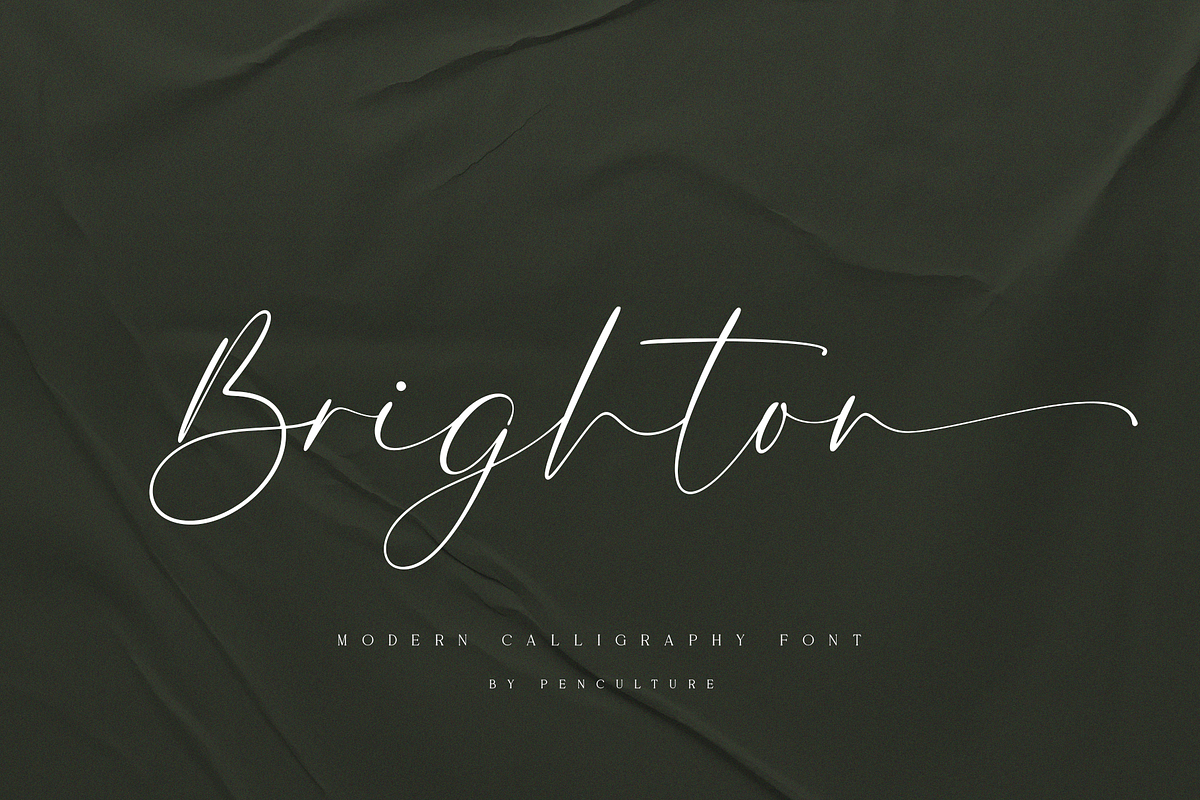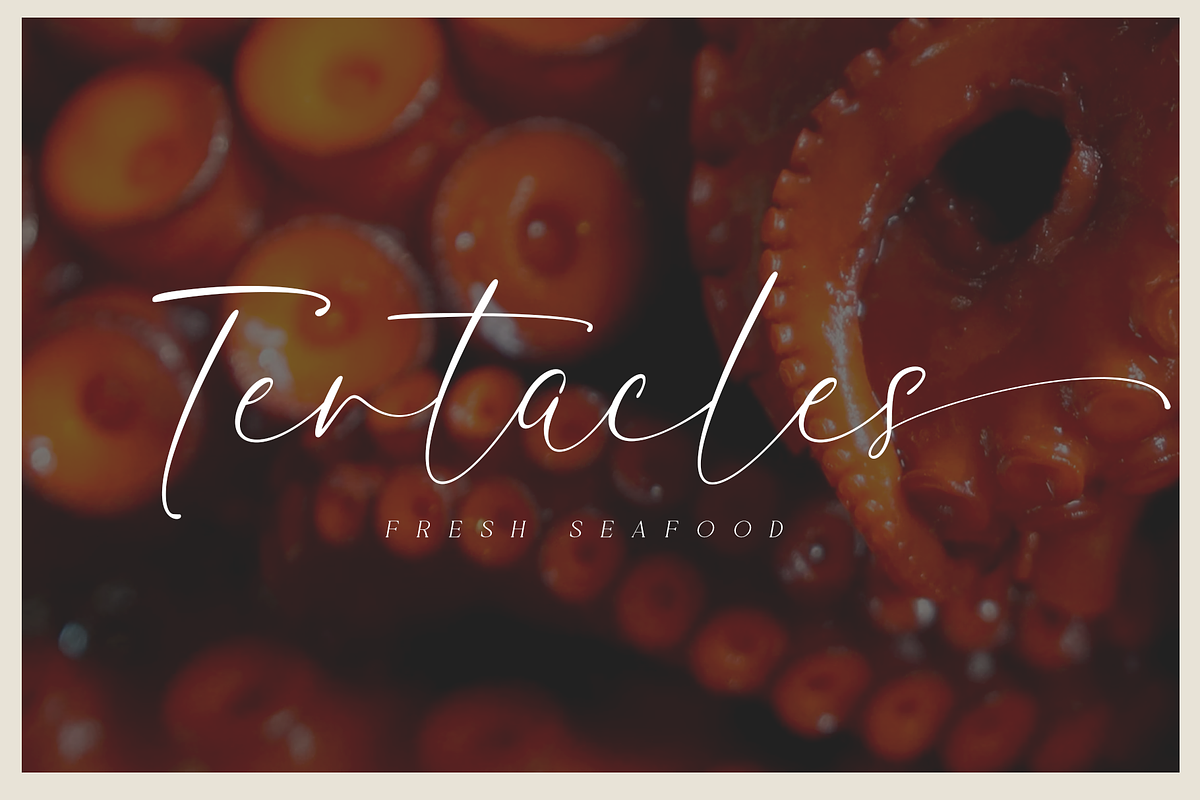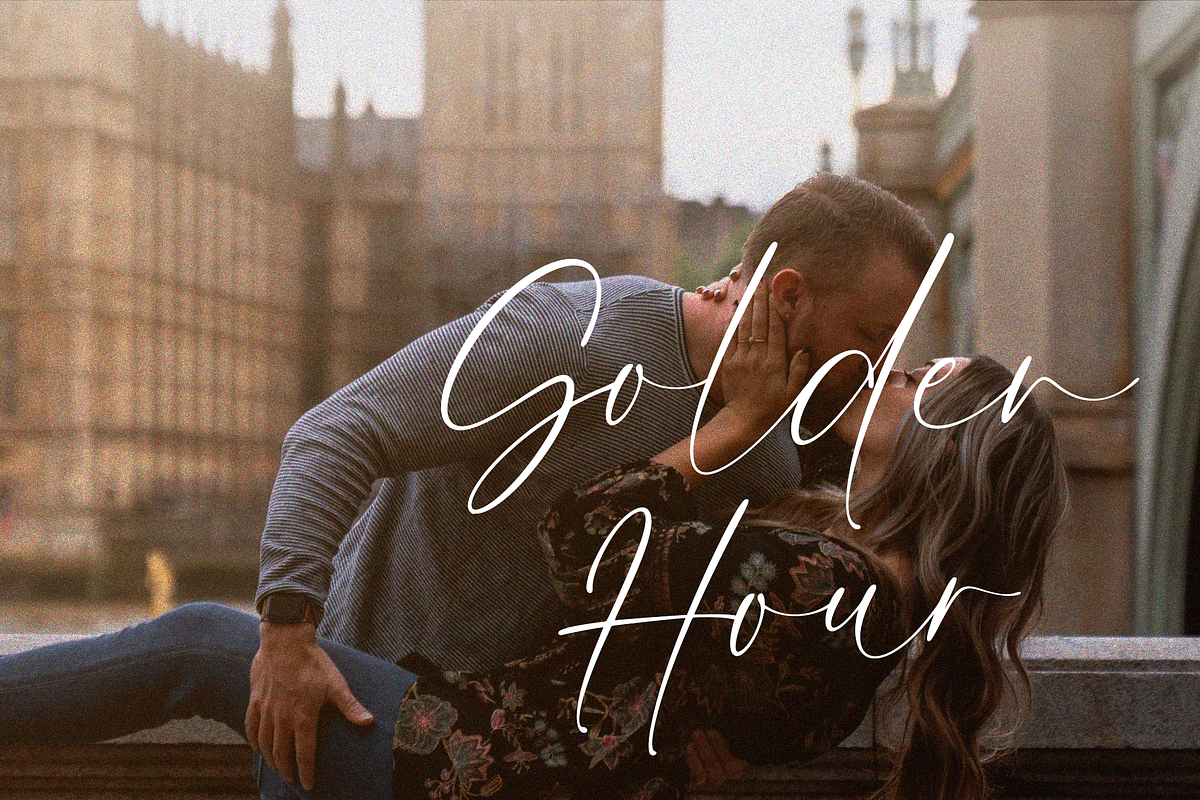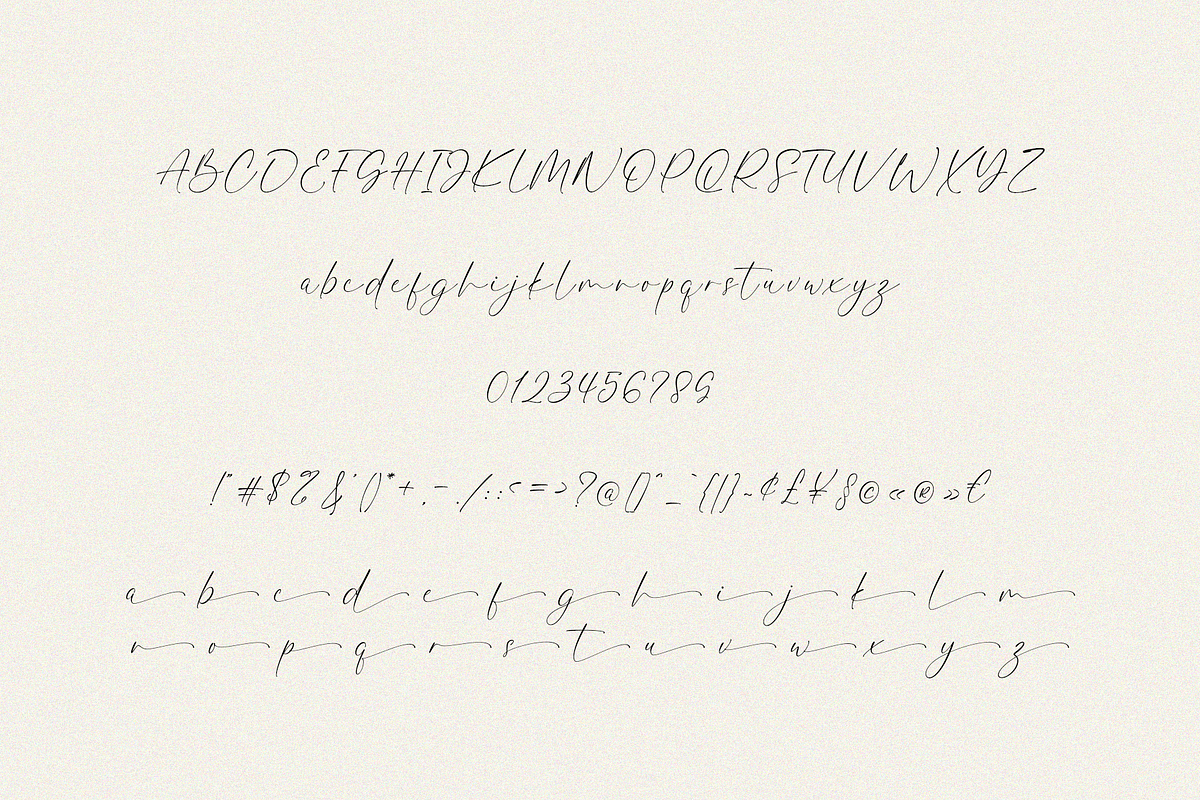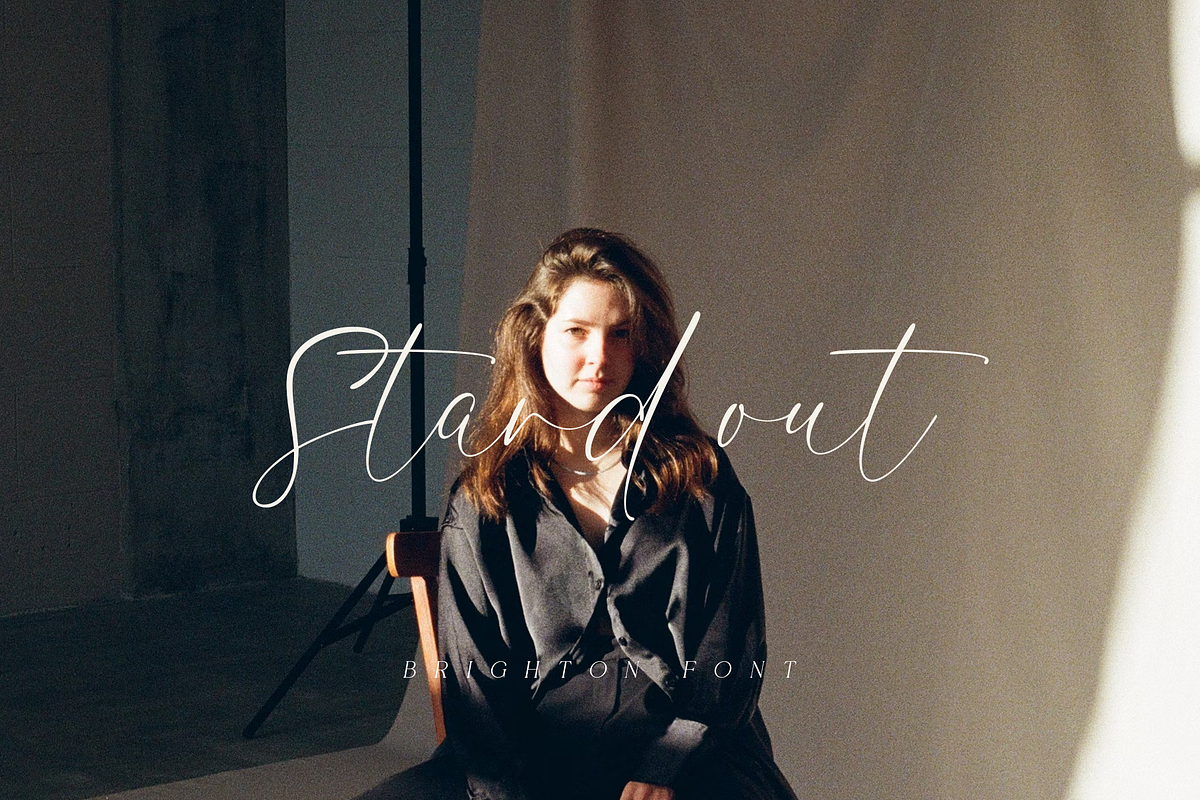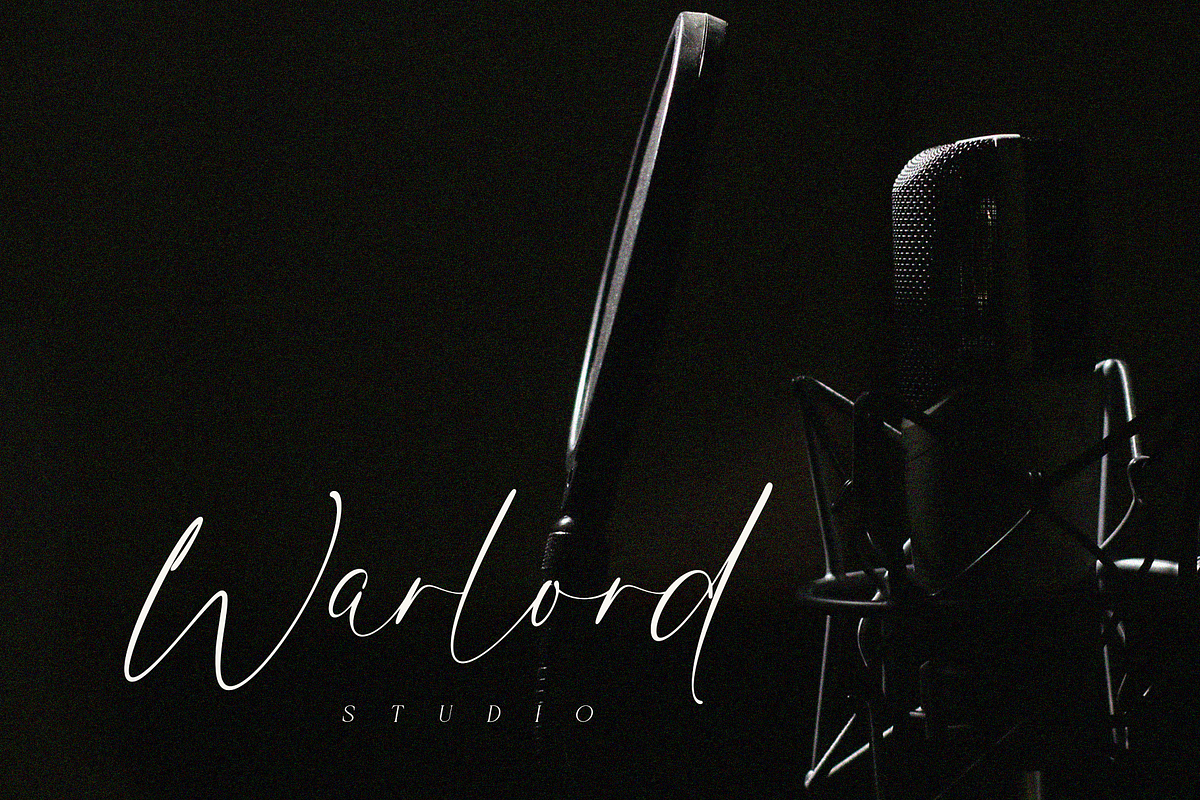
Brighton - Modern Calligraphy Font
Introducing "Brighton - Modern Calligraphy Font"
Introducing Brightone, a sophisticated script calligraphy font that exudes elegance and charm. Perfect for wedding invitations, logos, branding, and more, Brightone features beautifully flowing, hand-drawn strokes that capture the timeless beauty of traditional calligraphy. With a full set of uppercase and lowercase letters, numerals, punctuation, and extensive multilingual support, this font is as versatile as it is beautiful.
Brightone includes elegant ligatures and stunning swashes to add a personalized touch to your designs. Whether you’re crafting an exquisite logo, an elegant wedding invite, or a captivating social media post, Brightone will elevate your project with its graceful details and refined style.